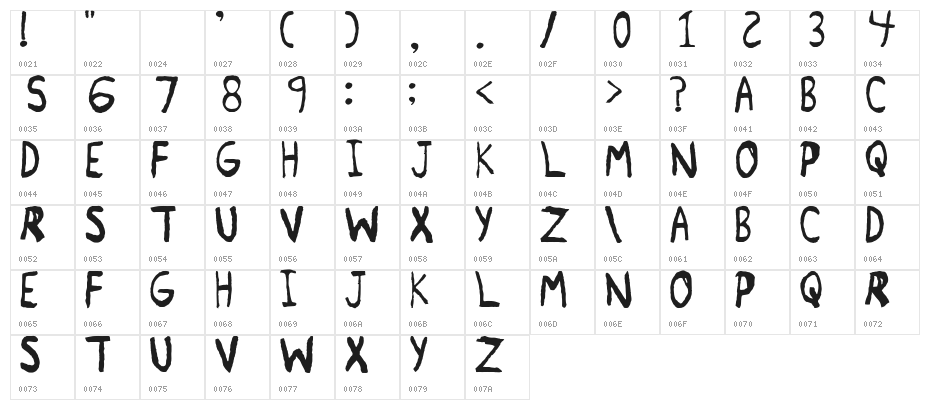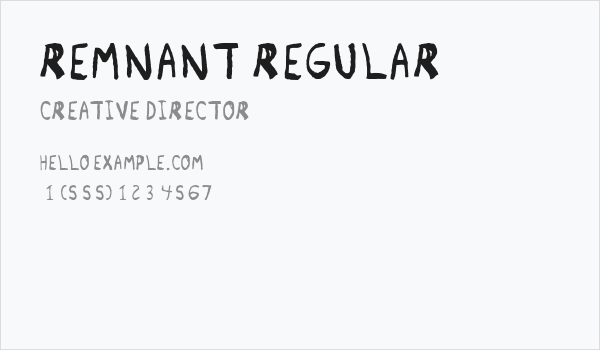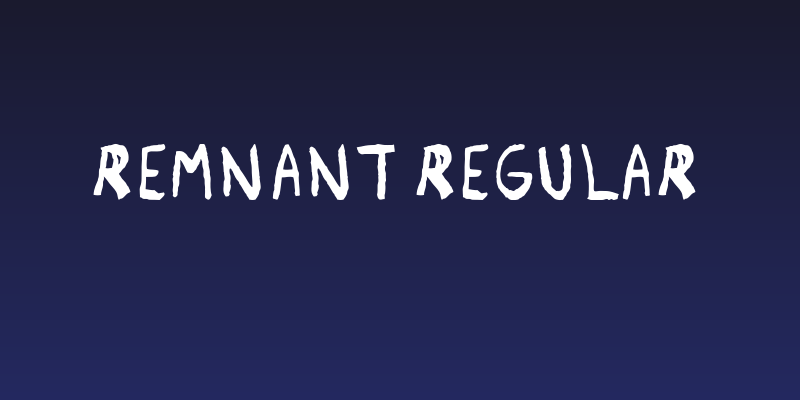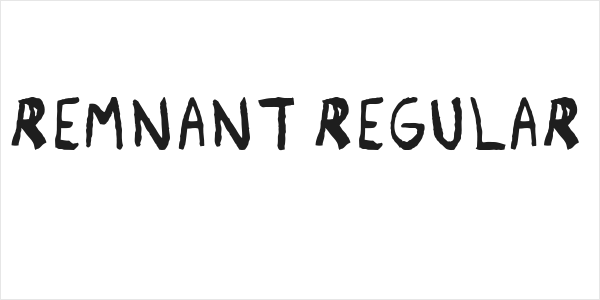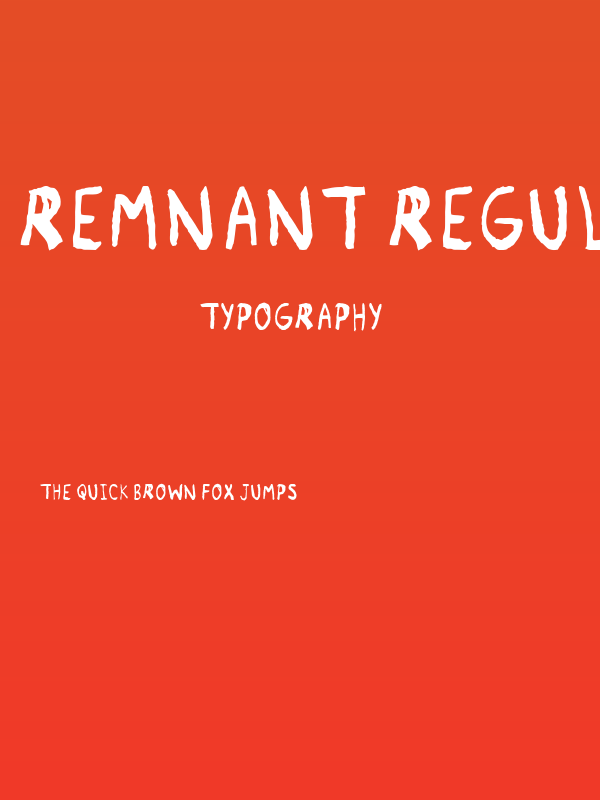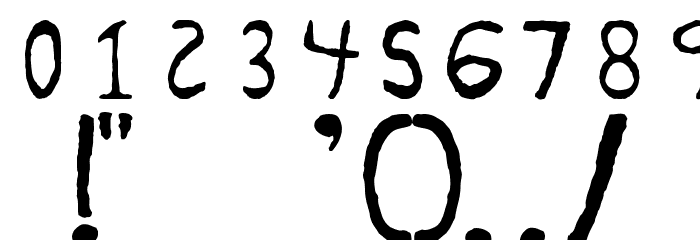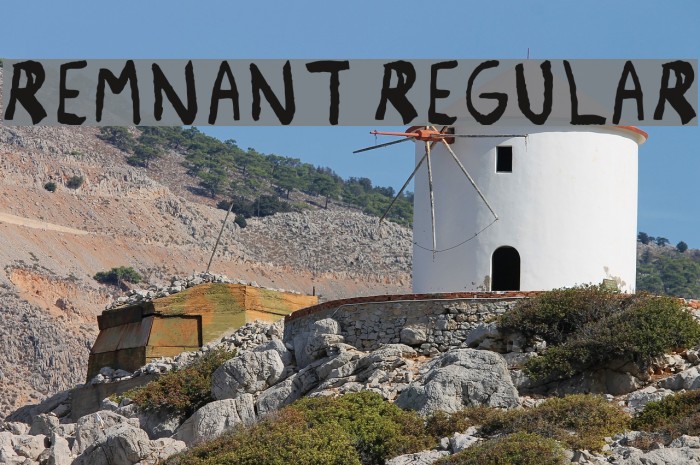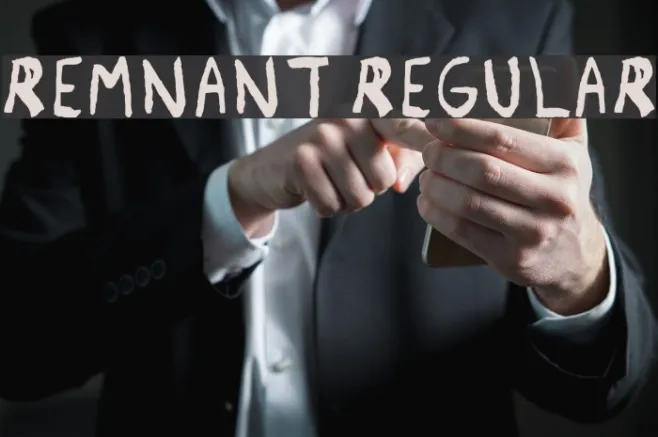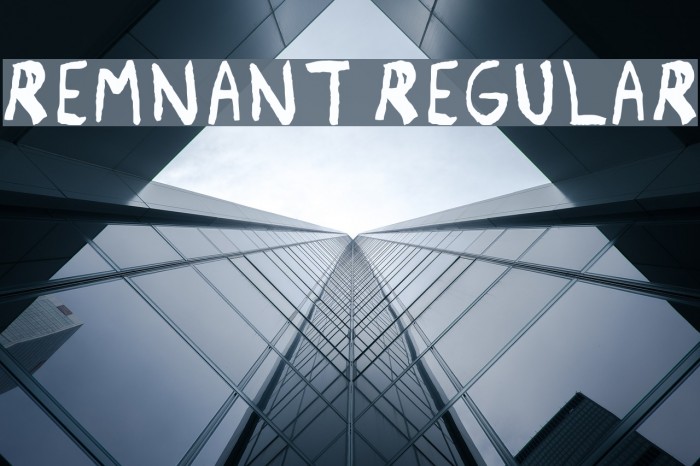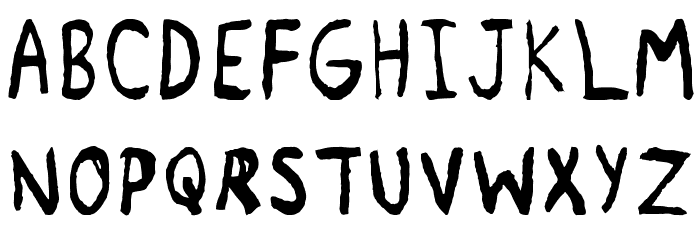
Remnant Regular Font
Remnant Regular Description
This font features a hand-drawn, organic style with uneven strokes and a slightly rough texture, giving it a rustic and authentic feel. The characters are bold and have a playful, informal appearance, making them stand out with a unique personality. The uppercase and lowercase letters maintain a consistent style, with a slight variation in stroke thickness that adds to the handcrafted look. The numbers and special characters follow the same aesthetic, ensuring a cohesive appearance across all elements. This font is ideal for projects that require a touch of individuality and creativity.
| Proposed Projects | Ideal for creative projects such as posters, invitations, branding, and packaging that require a unique, handcrafted look. |